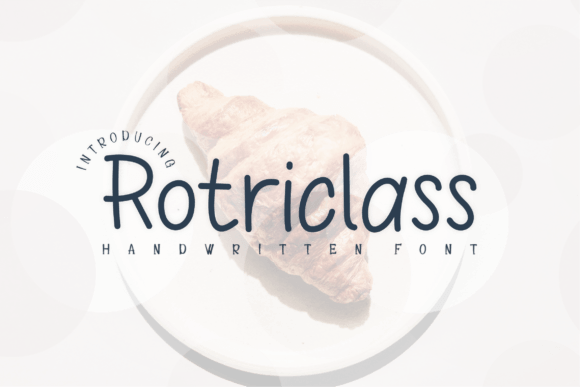
Prepare yourself to be amazed by Rotriclass Font, the epitome of elegance and creativity, meticulously crafted to fulfill your every design desire. Immerse yourself in the world of this enchanting script font, a masterpiece curated by the talented emprit.graphic, specifically designed to elevate your creative resume to unprecedented heights.
Step into a realm where sophistication meets playfulness, where every letter dances across the page with effortless grace. Rotriclass Font is not merely a collection of characters; it's an artistic expression, a symphony of curves and strokes that will transform your words into captivating works of art.
Whether you're a seasoned designer seeking to leave an indelible mark or an ambitious professional seeking to make a bold statement, Rotriclass Font is your perfect companion. Its undeniable charm and timeless appeal will ensure that your creative resume stands out from the crowd, leaving a lasting impression on potential employers.
Indulge in the symphony of creativity that Rotriclass Font offers. Its meticulously crafted characters, each possessing a unique personality, will bring a touch of individuality to your resume. Personalize your application with the flair and finesse that only Rotriclass Font can provide, demonstrating your attention to detail and impeccable taste.
With Rotriclass Font, you're not just downloading a font; you're embracing an experience. Let your creativity soar as you explore the endless possibilities this font presents. From elegant curves to playful flourishes, Rotriclass Font empowers you to craft a resume that reflects your true essence, capturing the attention of recruiters and leaving them eager to learn more about you.
Don't settle for ordinary fonts that blend into the background. Choose Rotriclass Font, the font that commands attention, ignites curiosity, and propels your creative resume to the forefront. It's more than just a font; it's a statement of your individuality, a testament to your creativity, and a key that unlocks the door to your dream job.
With Rotriclass Font, you're not just creating a resume; you're crafting a masterpiece. Embrace the power of this extraordinary font and watch as your creative resume transforms into a captivating narrative that speaks volumes about your talent and dedication. The journey to your dream job starts with Rotriclass Font. Take the first step today and let your creativity shine.